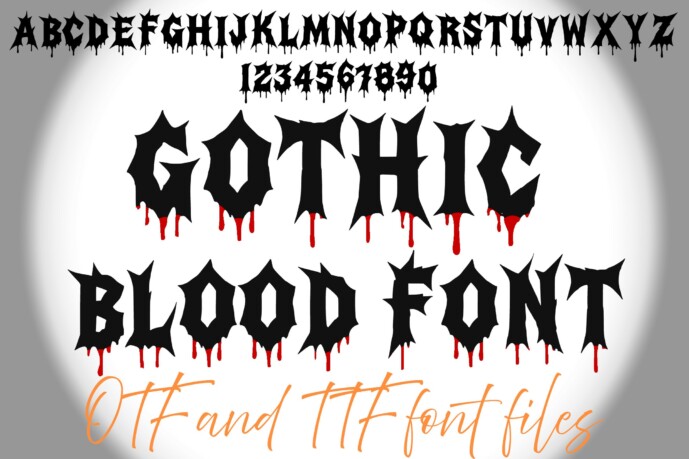
Gothic Blood Font
Sink your fangs into Gothic Blood Font, a chilling display typeface dripping with attitude. Each character oozes horror, with sharp gothic cuts and blood-drip accents that scream Halloween, metal music posters, haunted house flyers, and dark-themed merch. Whether you’re designing a spine-tingling invitation or branding a nightmarish project, this font delivers a macabre punch in both OTF and TTF formats.